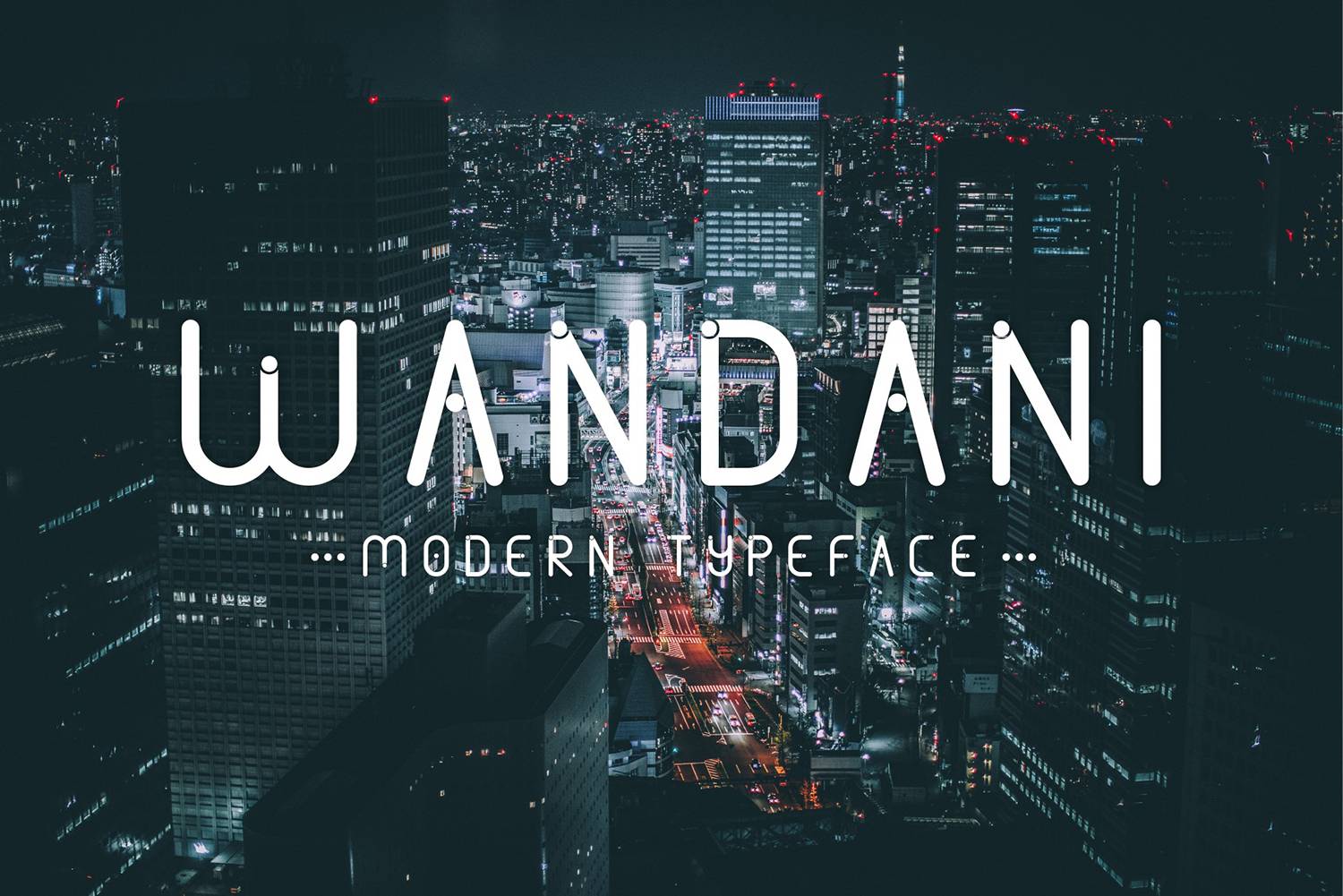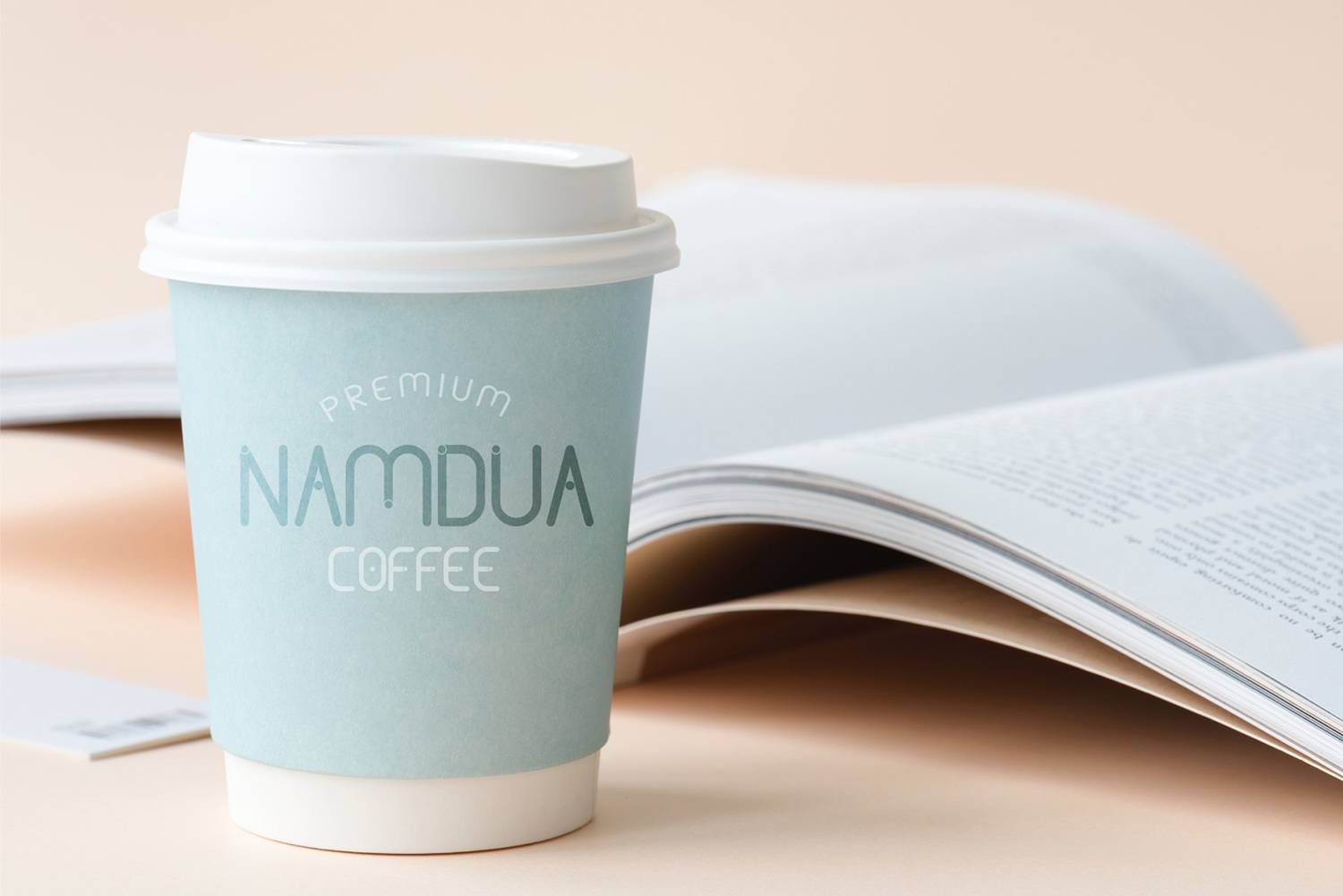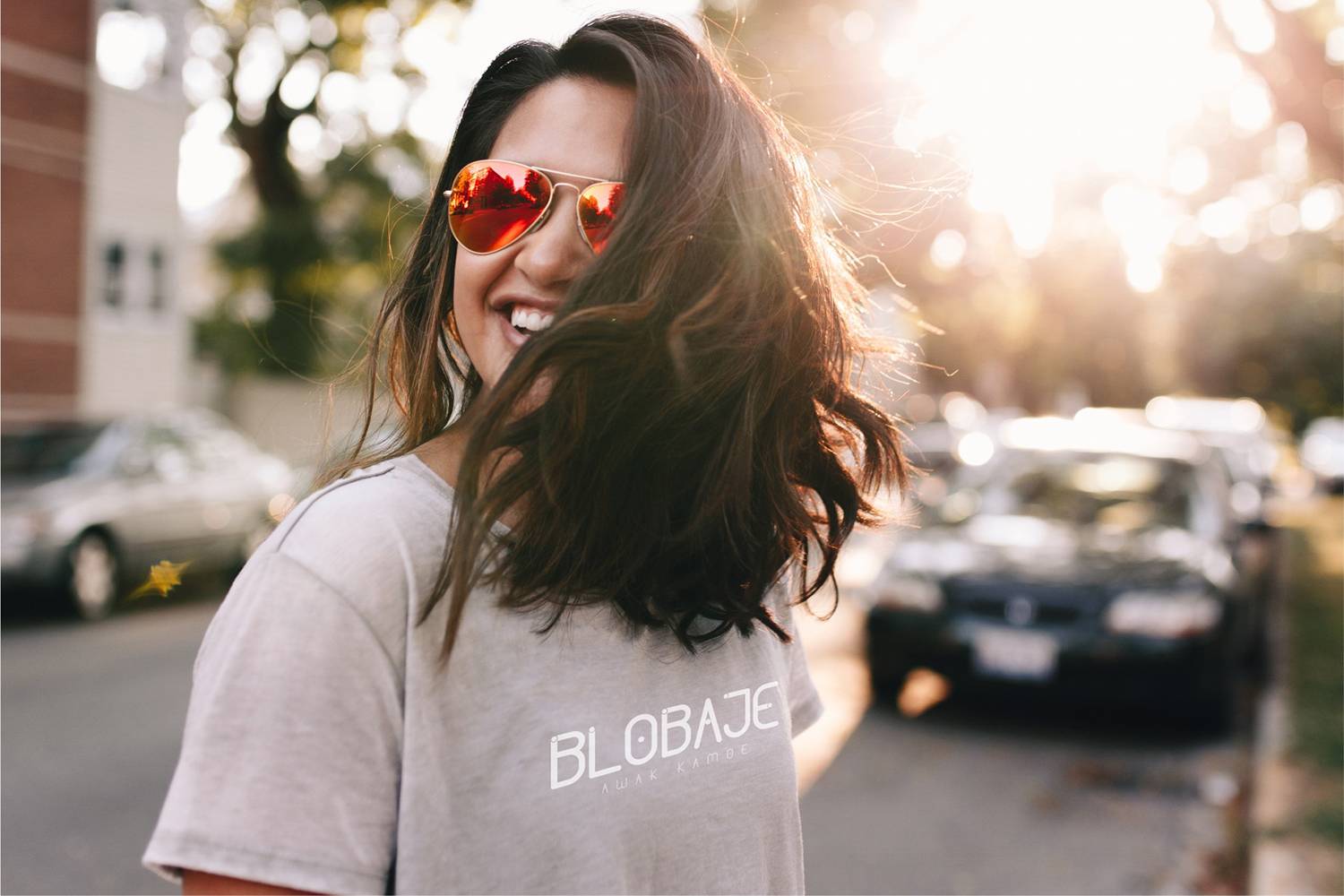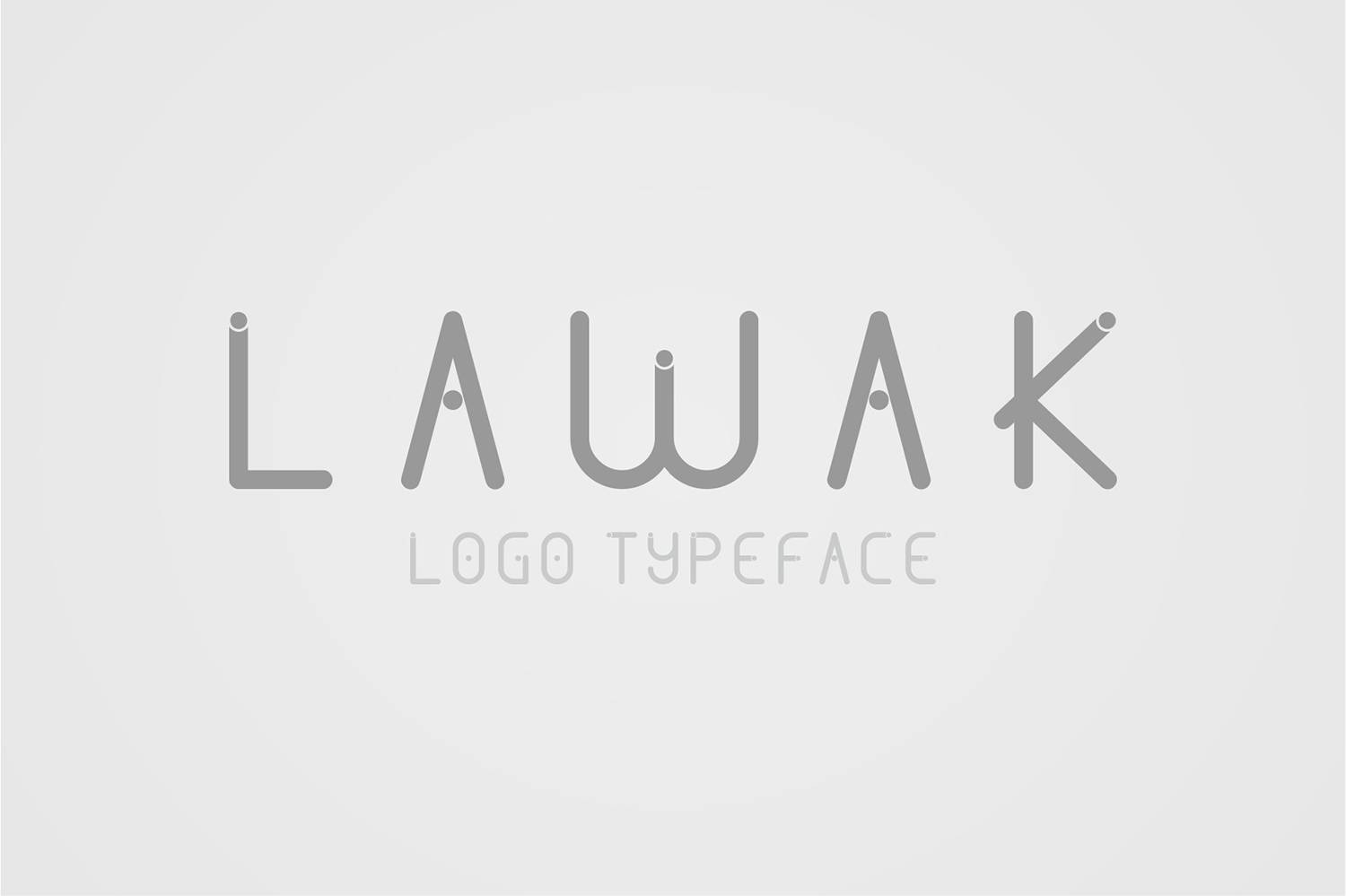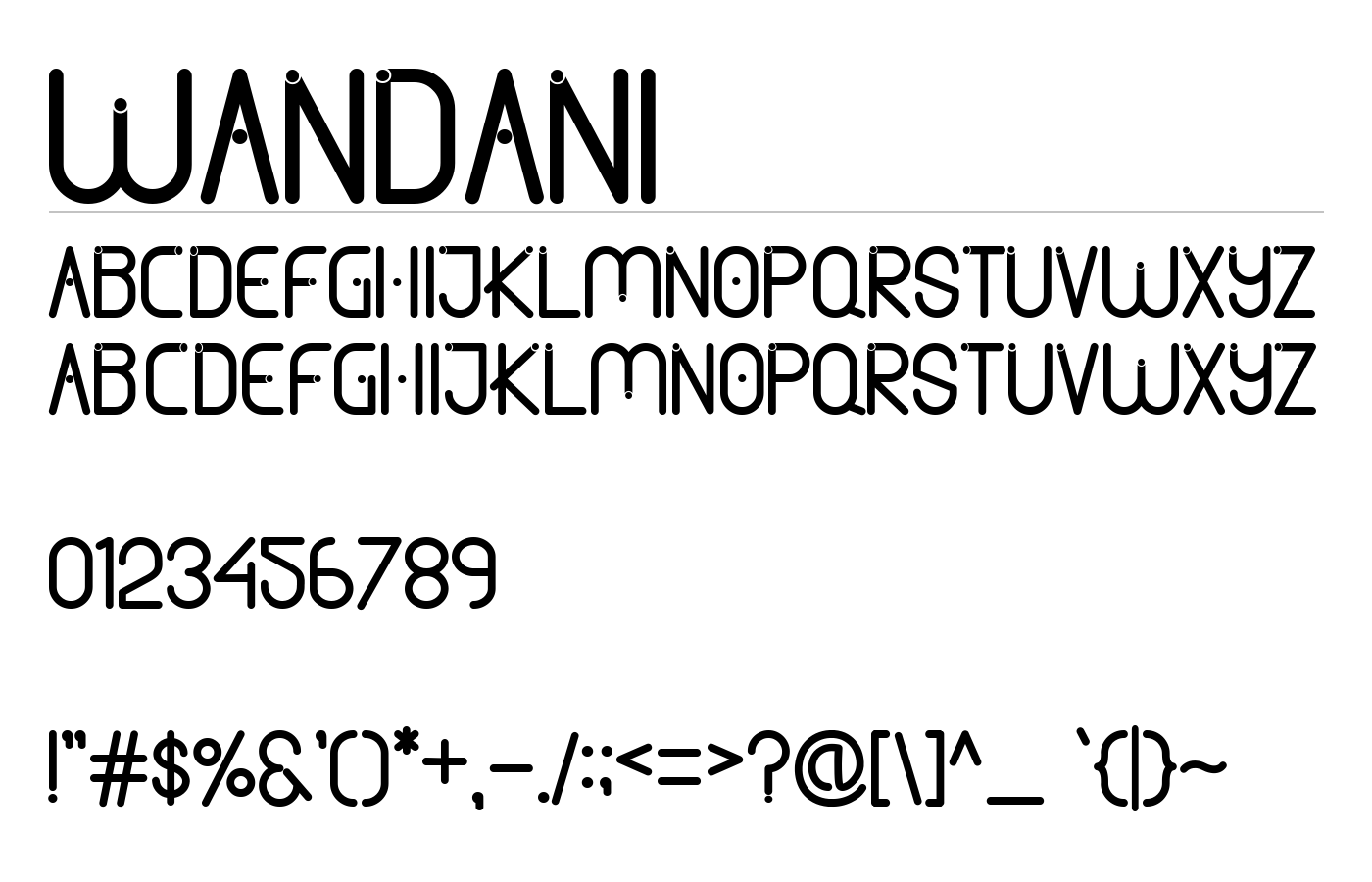
Wandani is a modern, geometric sans serif font with a clean, rounded design that gives it a futuristic and tech-savvy feel. Its consistent stroke weight and unique circular terminals create a sleek, approachable look, making it ideal for branding, digital projects, and headlines where a contemporary and friendly vibe is desired. This font works well in creative, tech, and modern lifestyle contexts thanks to its balanced readability and distinctive style.
Wandani Font
About Wandani Font